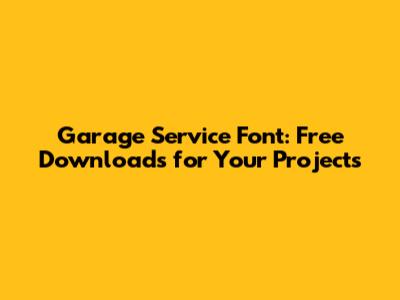
- Readability: Above all, your font needs to be easy to read, especially in smaller sizes. This is crucial for contact information, addresses, and fine print.
- Legibility: Ensure that each character is distinct and easily recognizable. Avoid overly decorative or stylized fonts that can be confusing.
- Versatility: Choose a font that works well in various contexts, from print materials to digital platforms. A versatile font will maintain consistency across your branding.
- Personality: The font should align with your brand's identity. A bold, strong font might suit a performance-oriented garage, while a clean, modern font could be ideal for a high-tech service center.
- Limit Font Choices: Avoid using too many different fonts in a single project. Stick to two or three fonts to maintain a consistent and professional look.
- Use Font Hierarchy: Use different font sizes and weights to create a visual hierarchy. This helps guide the reader's eye and makes your content more engaging.
- Consider Contrast: Ensure there is enough contrast between your text and background to make the text easy to read. Dark text on a light background is generally the most effective.
- Test Your Font Choices: Before finalizing your design, test your font choices on different devices and in different sizes to ensure they are legible and visually appealing.
Choosing the right font is crucial for any design project, especially when it comes to branding and marketing materials for garage services. A well-chosen font can convey professionalism, reliability, and the right aesthetic, attracting potential customers and reinforcing your brand identity. In this article, we'll explore various garage service fonts available for free download, discussing their characteristics, best uses, and where to find them. Whether you're designing a logo, creating promotional flyers, or revamping your website, finding the perfect font can make a significant difference in how your message is received.
Understanding the Importance of Font Choice
Font choice is more than just a matter of aesthetics; it's about communication. The right font can convey the personality of your brand, influence readability, and create a lasting impression. For garage services, you want fonts that project trust, competence, and efficiency. Think about the message you want to send: are you a modern, tech-savvy repair shop, or a traditional, family-owned business? Your font should reflect that.
Key Considerations When Selecting a Font
Selecting the right font involves carefully balancing these factors to create a cohesive and effective brand image. The goal is to choose a font that not only looks good but also enhances the overall message and appeal of your garage service.
Top Free Fonts for Garage Services
When it comes to top free fonts for garage services, there are several excellent options that can help you create a professional and appealing brand image. These fonts range from bold and robust to clean and modern, ensuring there's something for every type of garage service. Let's explore some of the best choices and how they can be used effectively.
1. Montserrat
Montserrat is a versatile sans-serif font that is widely used for its clean and modern appearance. Designed by Julieta Ulanovsky, this font is highly legible and works well in both headlines and body text. Its geometric design gives it a contemporary feel, making it suitable for garage services that want to project a forward-thinking image. Montserrat's various weights and styles offer flexibility for different applications, from logos to website content.
Why it's great for garage services: Montserrat's clarity and simplicity make it easy to read, even in smaller sizes. It's a great choice for business cards, flyers, and website text. Its modern aesthetic can help convey professionalism and reliability, essential qualities for attracting customers.
2. Open Sans
Open Sans is another popular sans-serif font known for its neutral yet friendly appearance. Created by Steve Matteson, this font is designed with an open form and a neutral, yet friendly appearance. It is highly legible and works well in a variety of contexts, making it a versatile choice for garage services. Open Sans is particularly effective for body text and user interfaces, ensuring a pleasant reading experience.